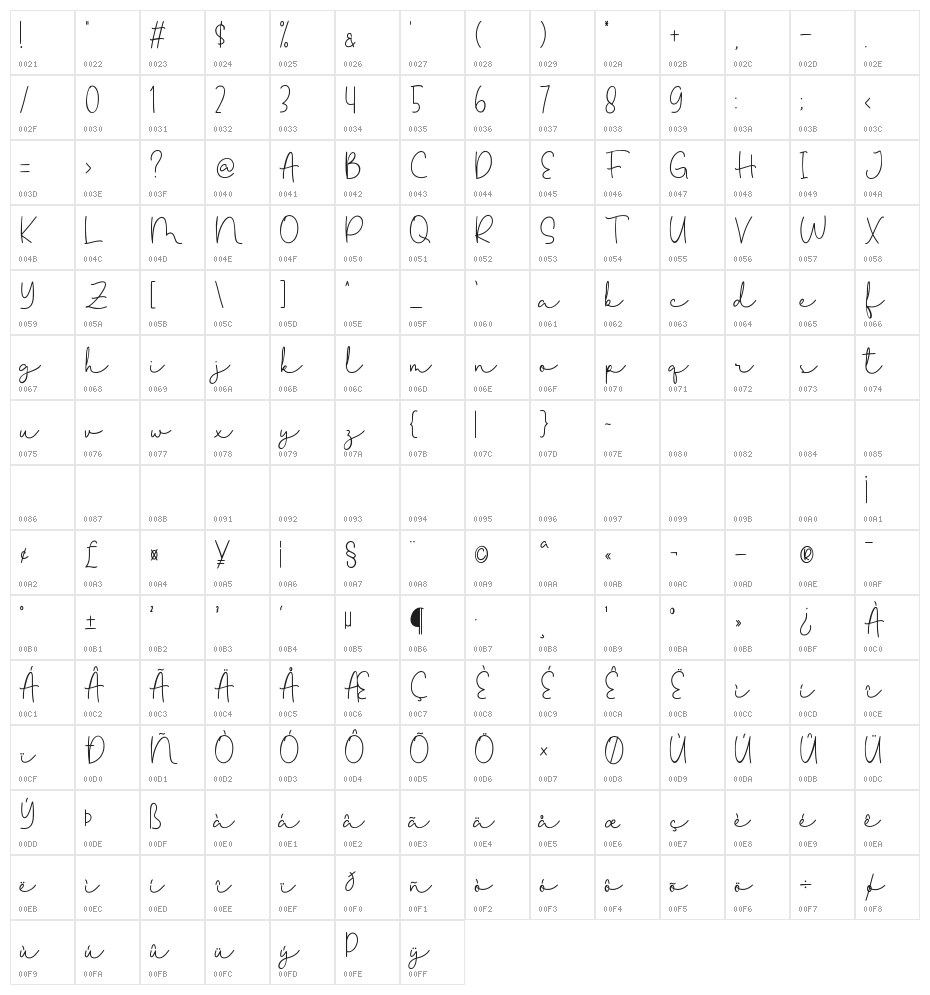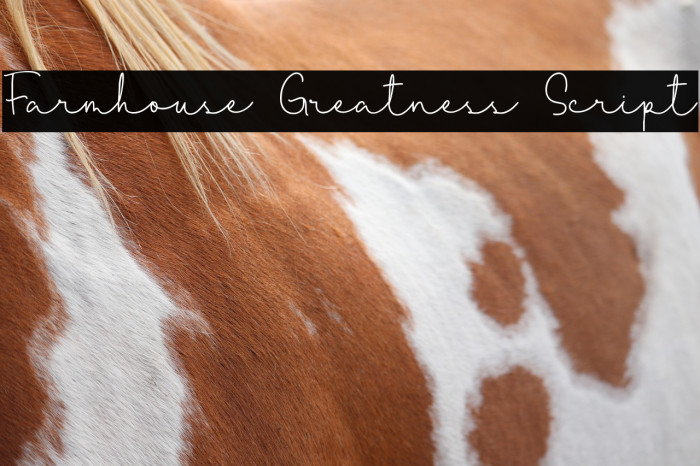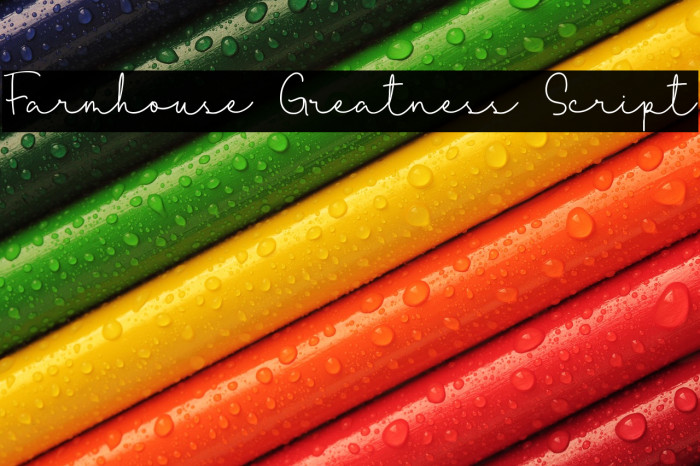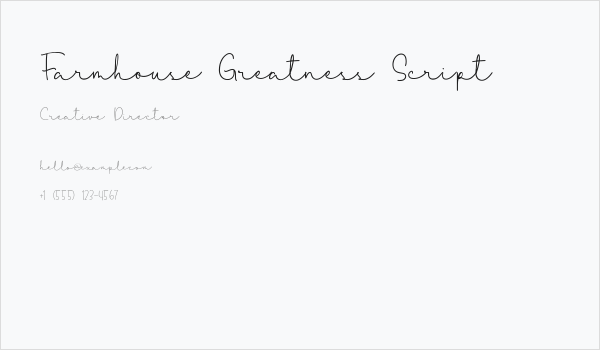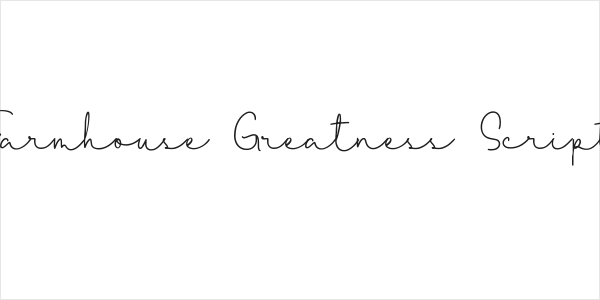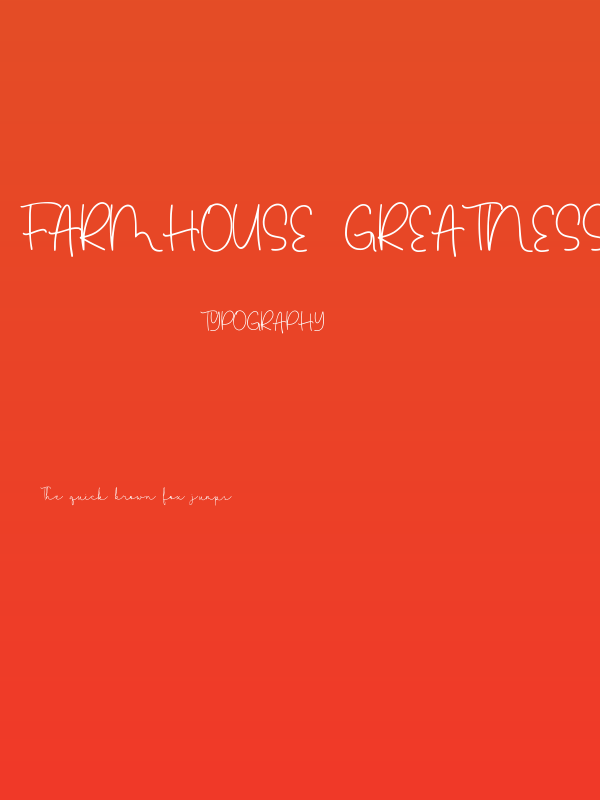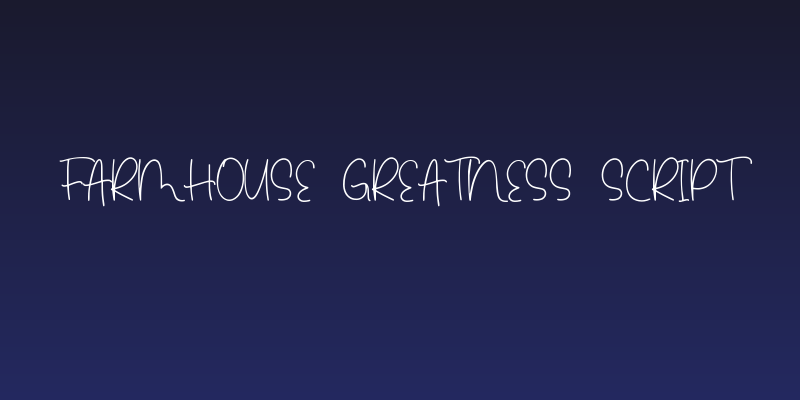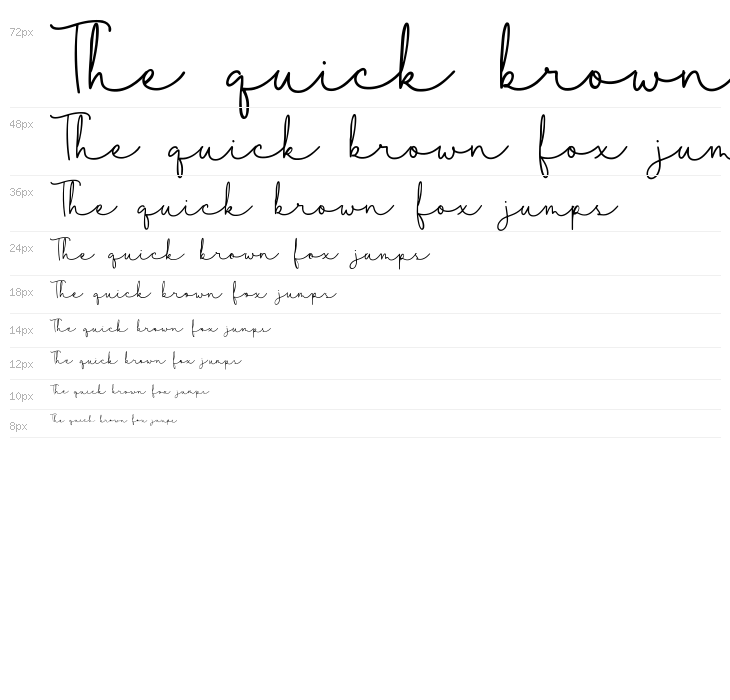
Farmhouse Greatness Script Font
Farmhouse Greatness Script Description
A casual, handwritten script font with a playful and informal style, featuring smooth, flowing lines and a slightly irregular baseline.
Overall StyleCasual, Playful
Use CaseLogos, Invitations, Personal projects
Proposed ProjectsGreeting cards, invitations, personal branding.